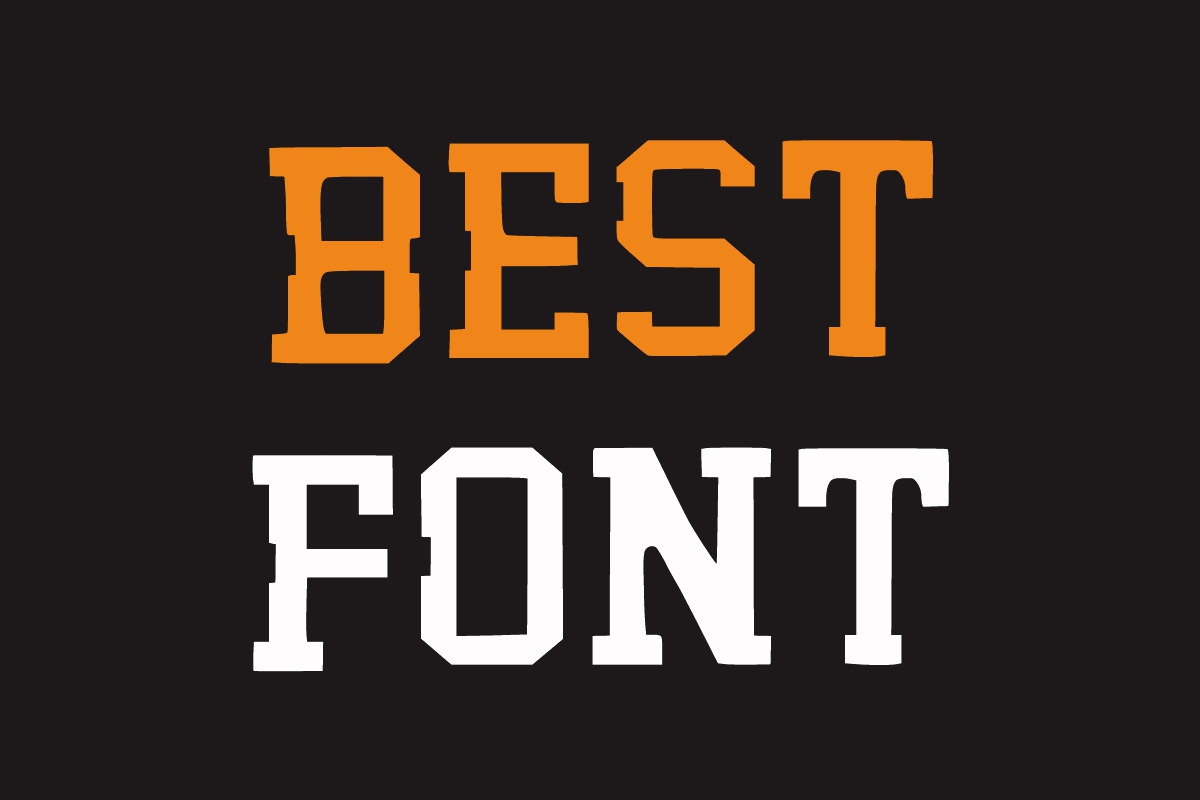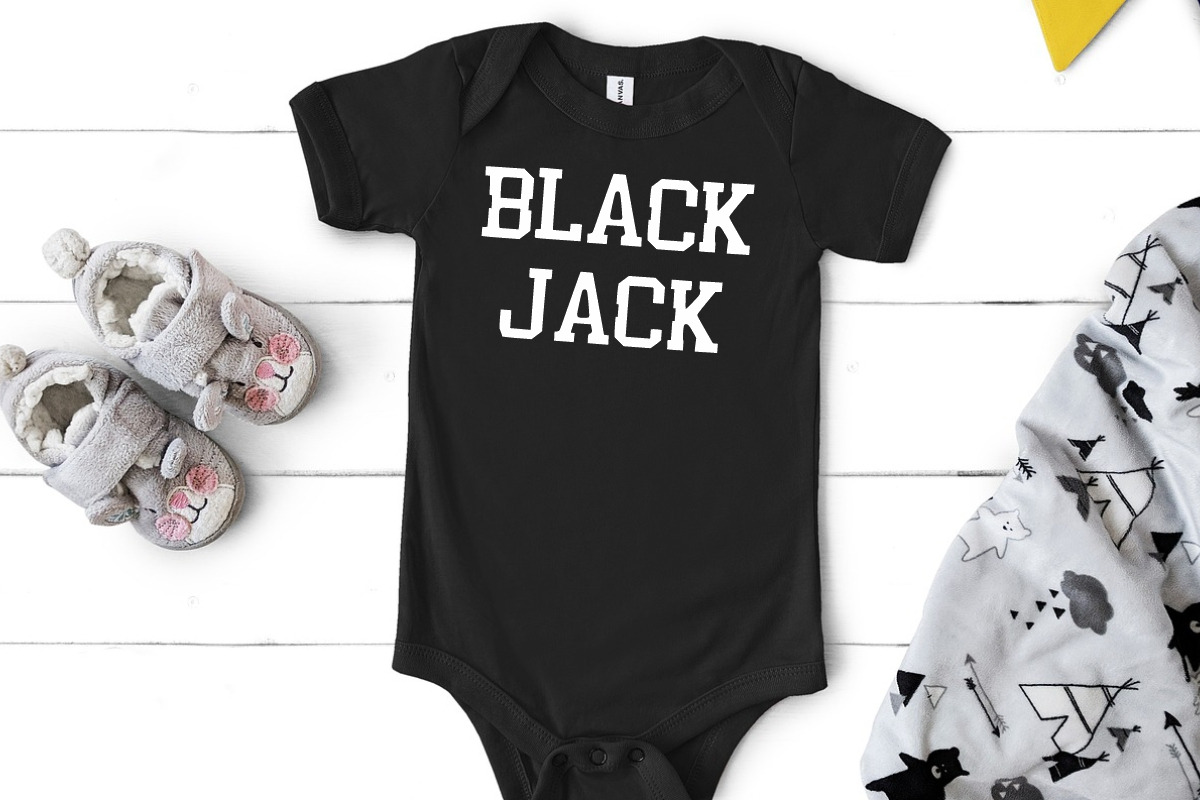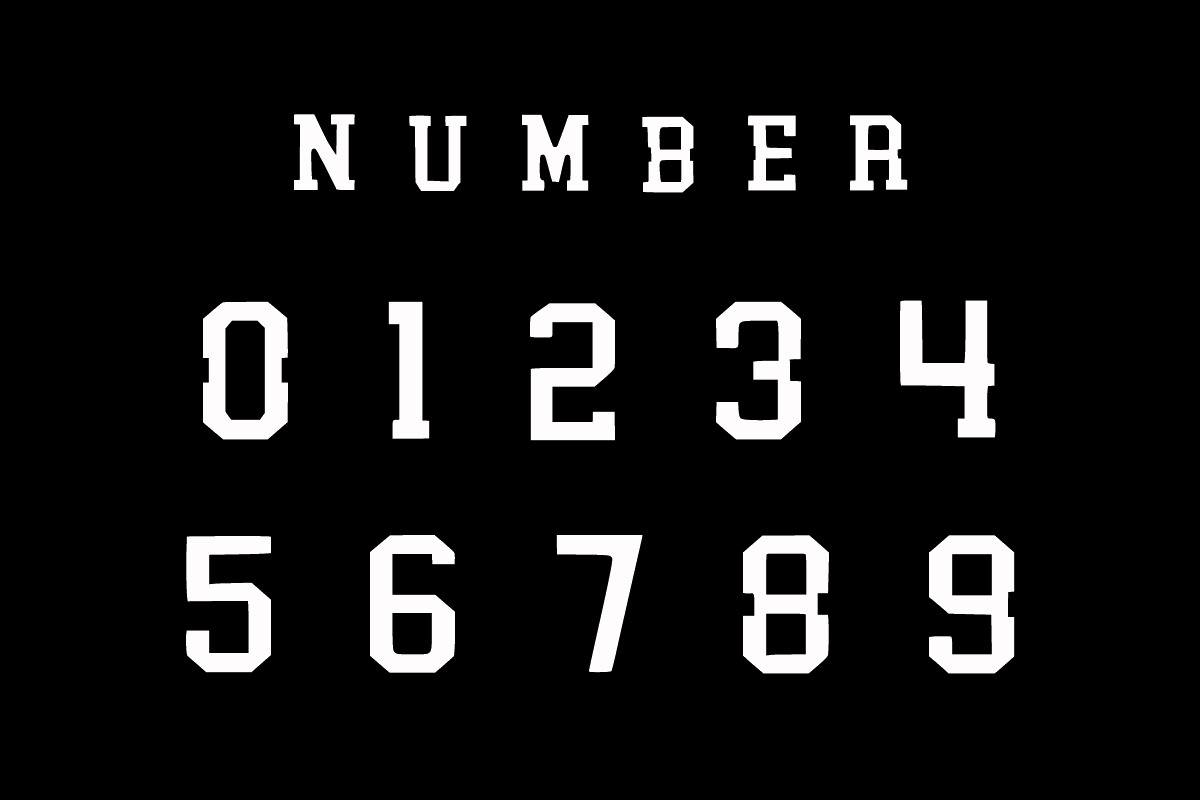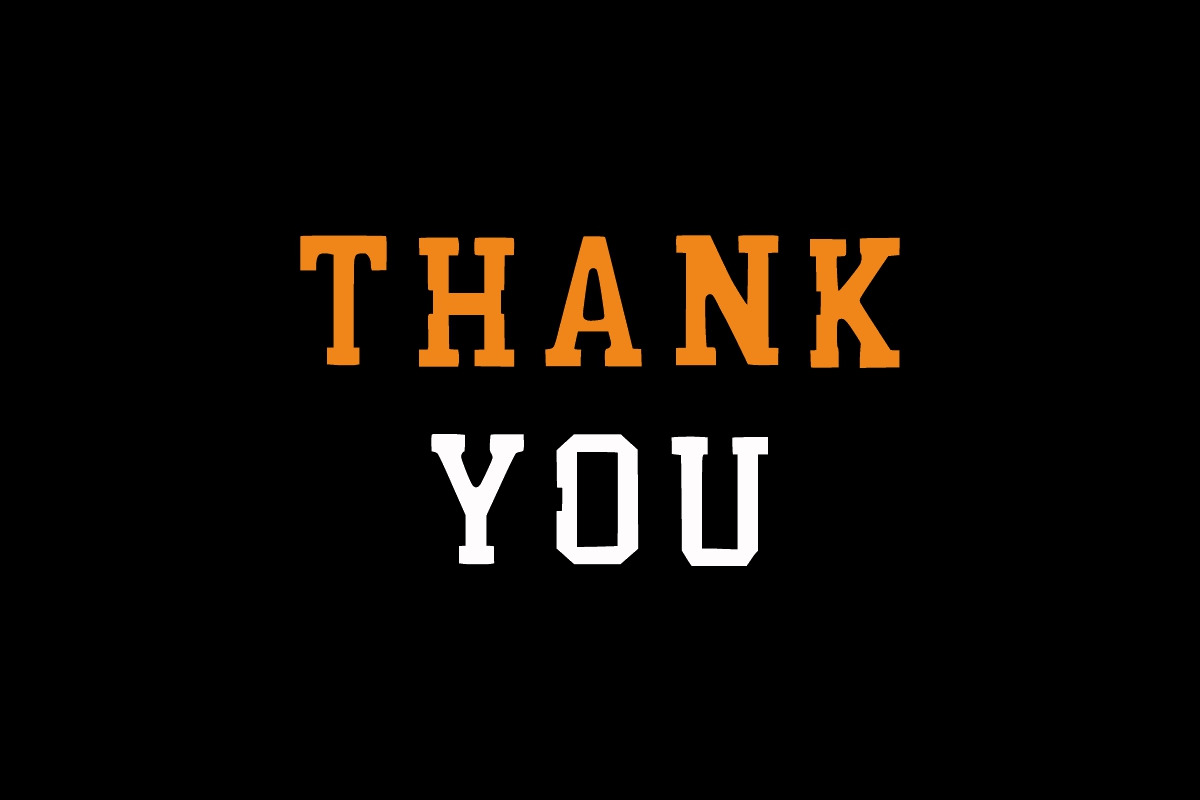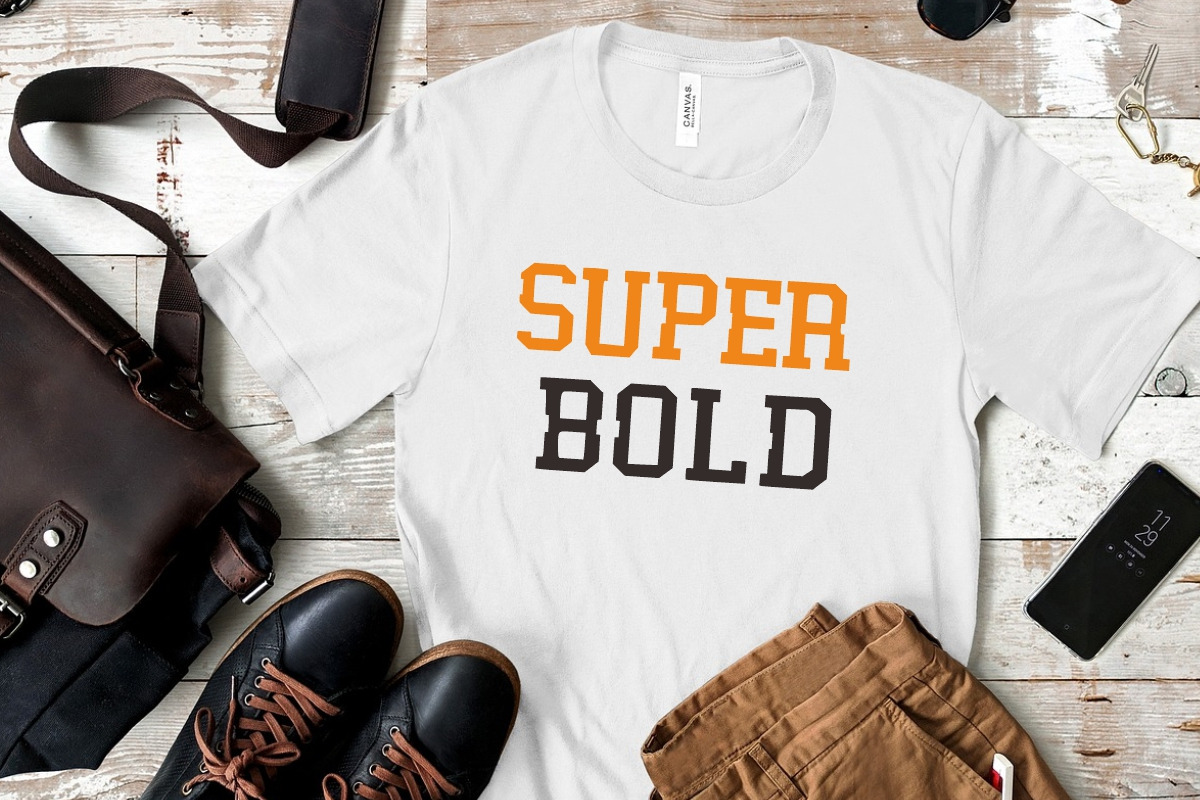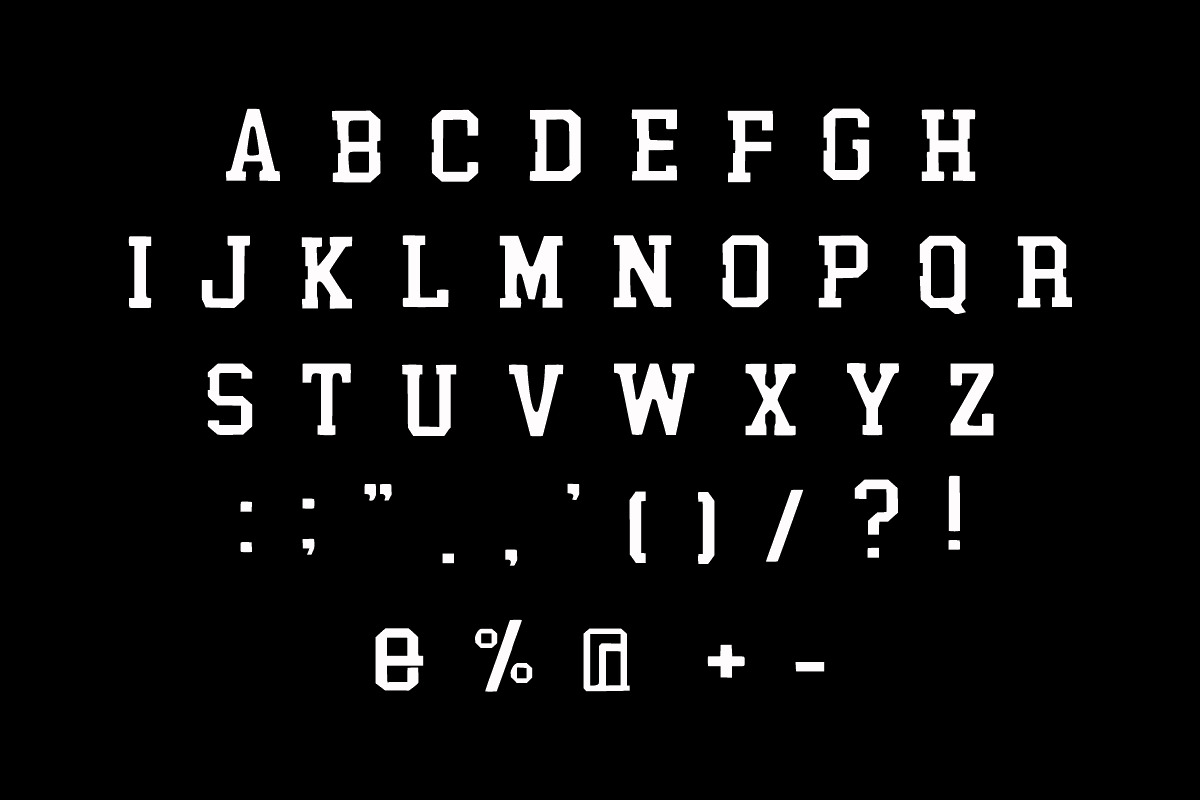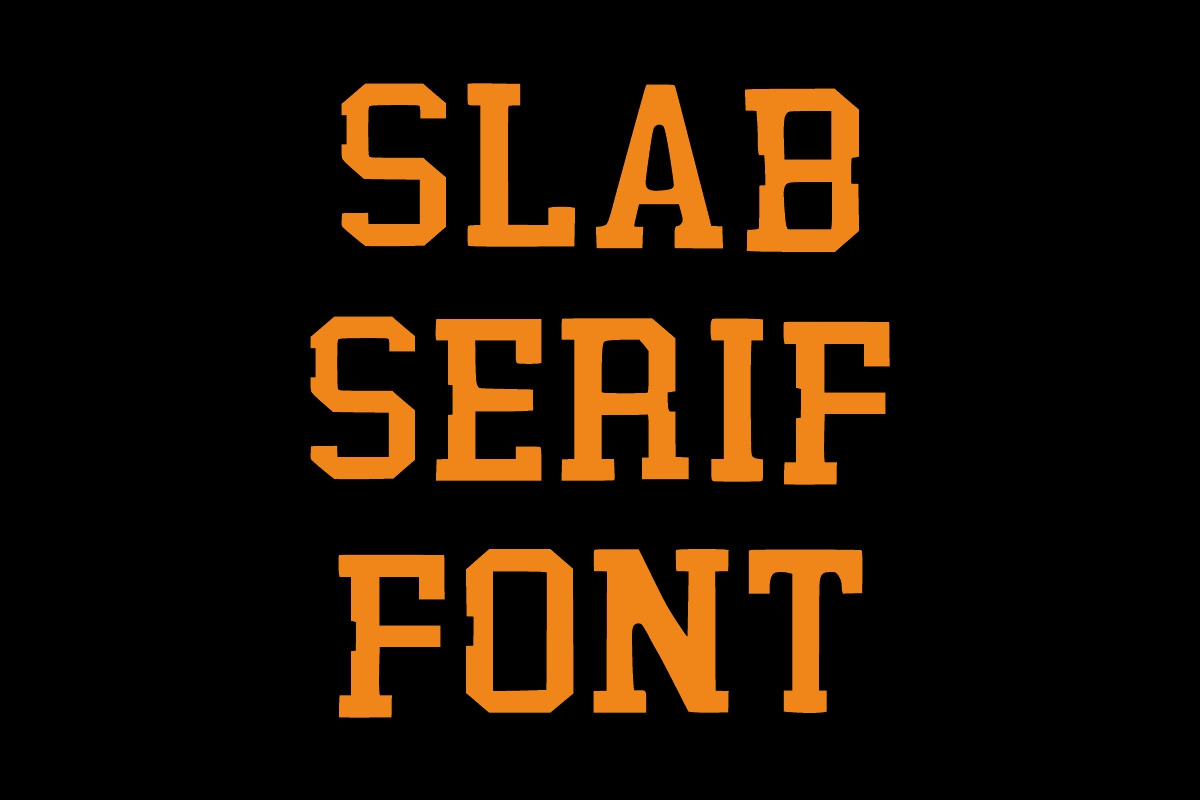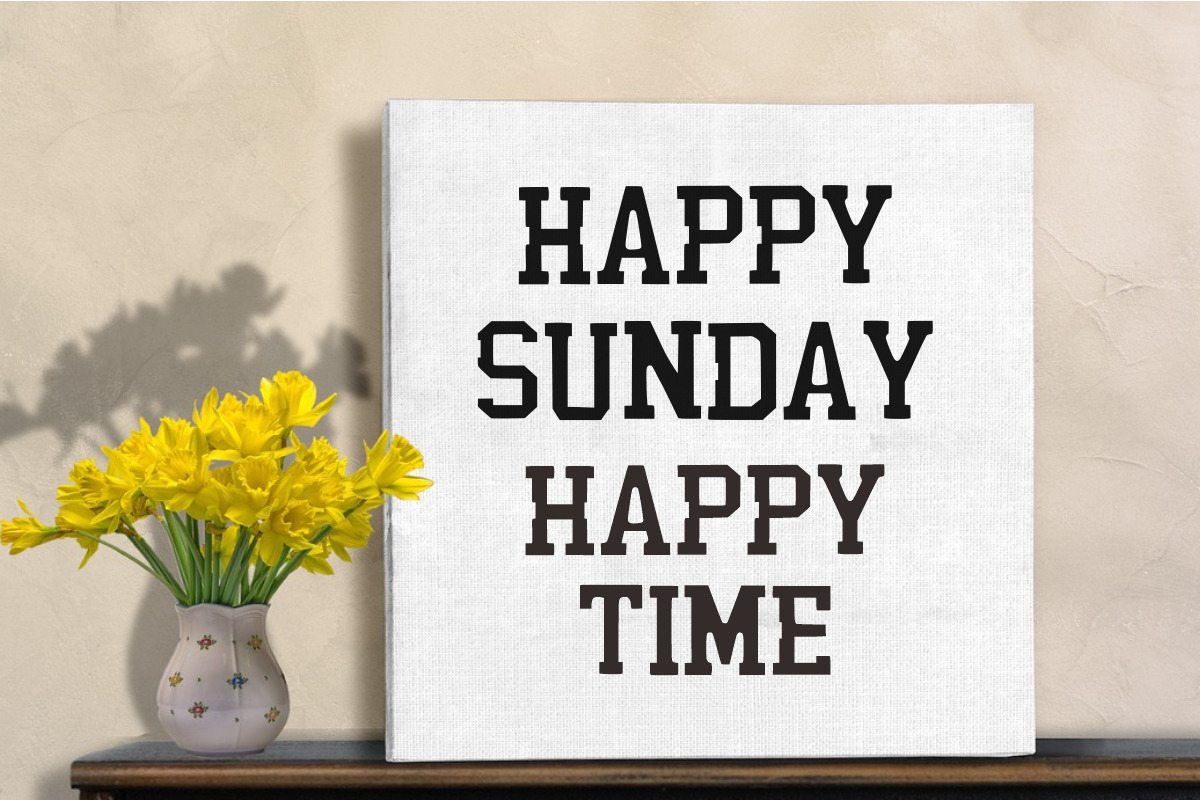
Varsity Simple
Varsity Simple is a college varsity styled font. It is suitable for any branding project, product packaging, invitation, quote, t-shirt, label, poster, text effect, label, and logo that you wish to develop.